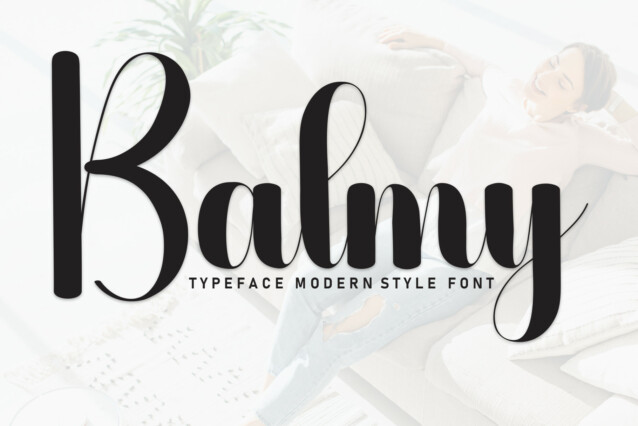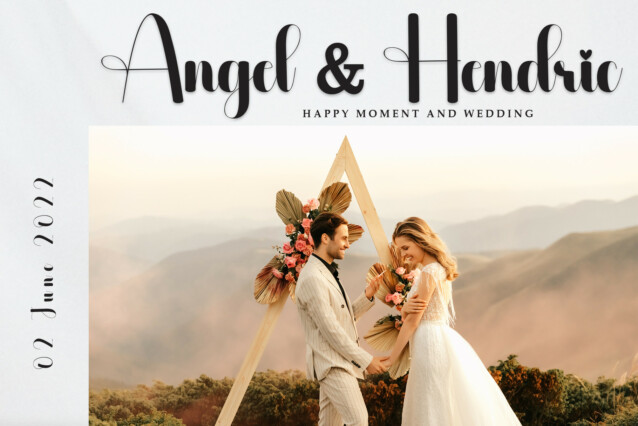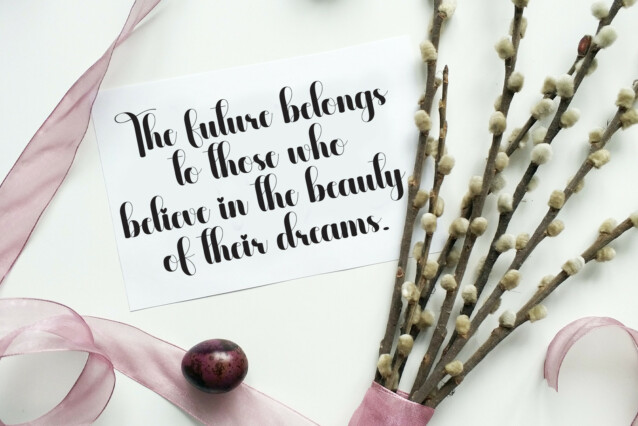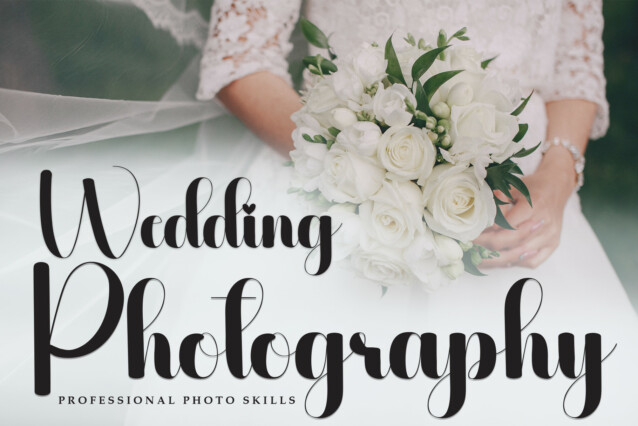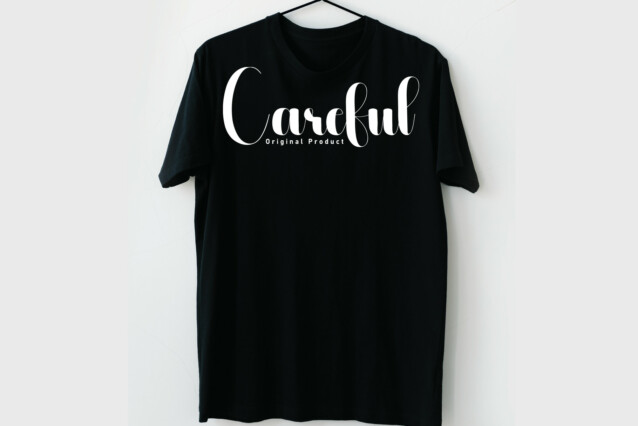
Balmy Script Font
Balmy Script Font is a handwritten font designed in a friendly and lovely style. It would be awesome for your diary planner and journal which you are able to use every day, and also your perfect projects such as back to school, weddings, party decoration, invitations, festivals, posters, blogs, clothing, child-related designs, greeting cards, social media posts or anything that needs a friendly touch. Add it now to your fonts library, and it will bring any of your DIY projects to life.